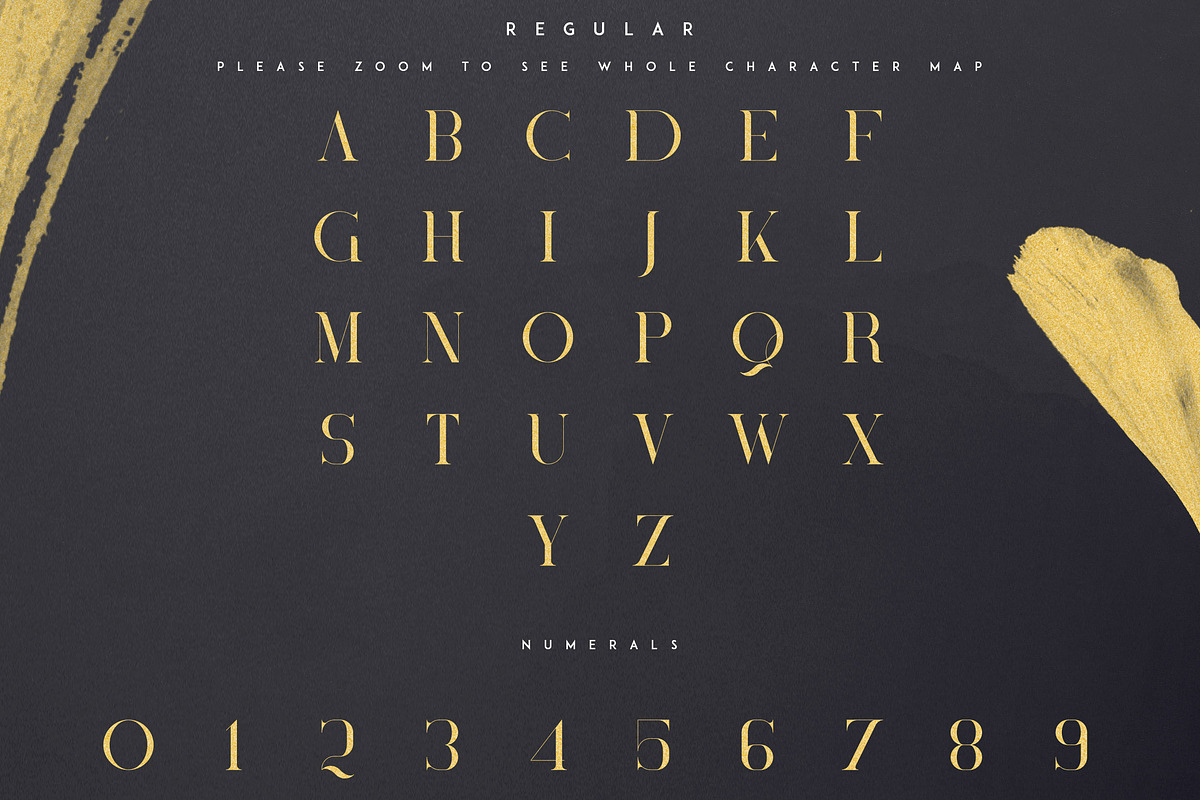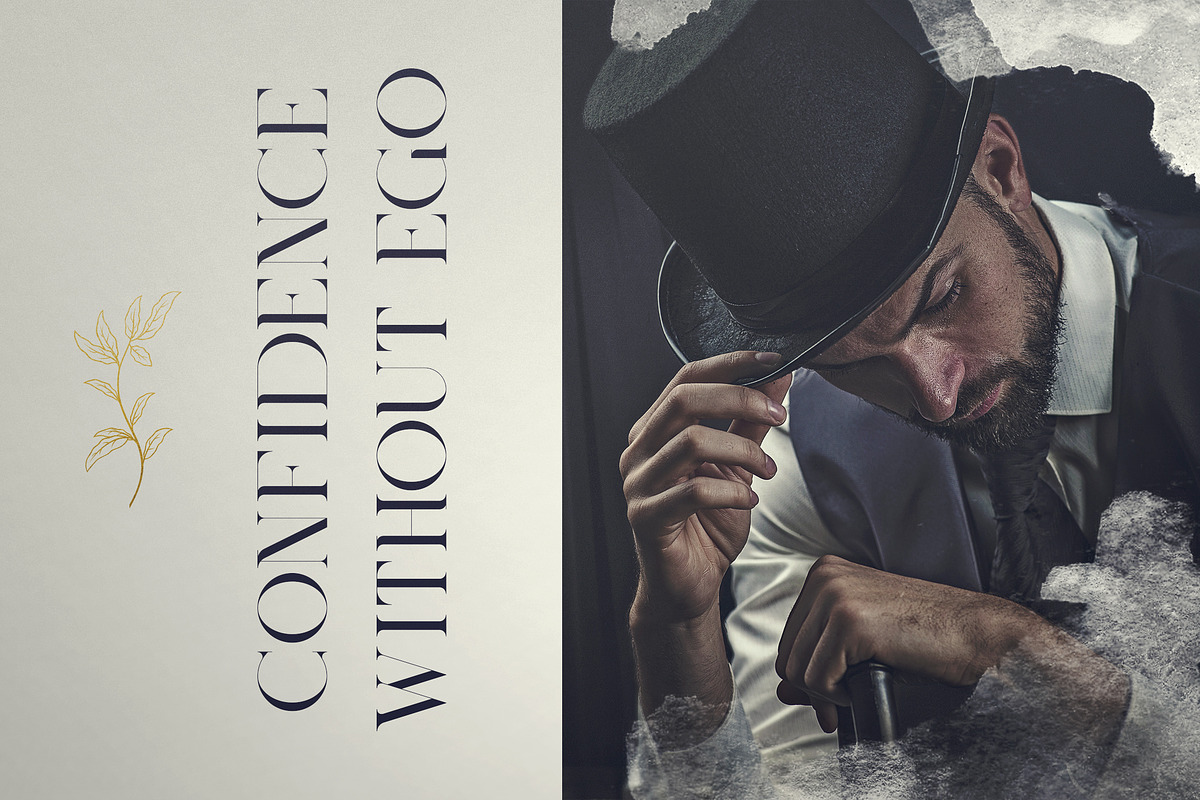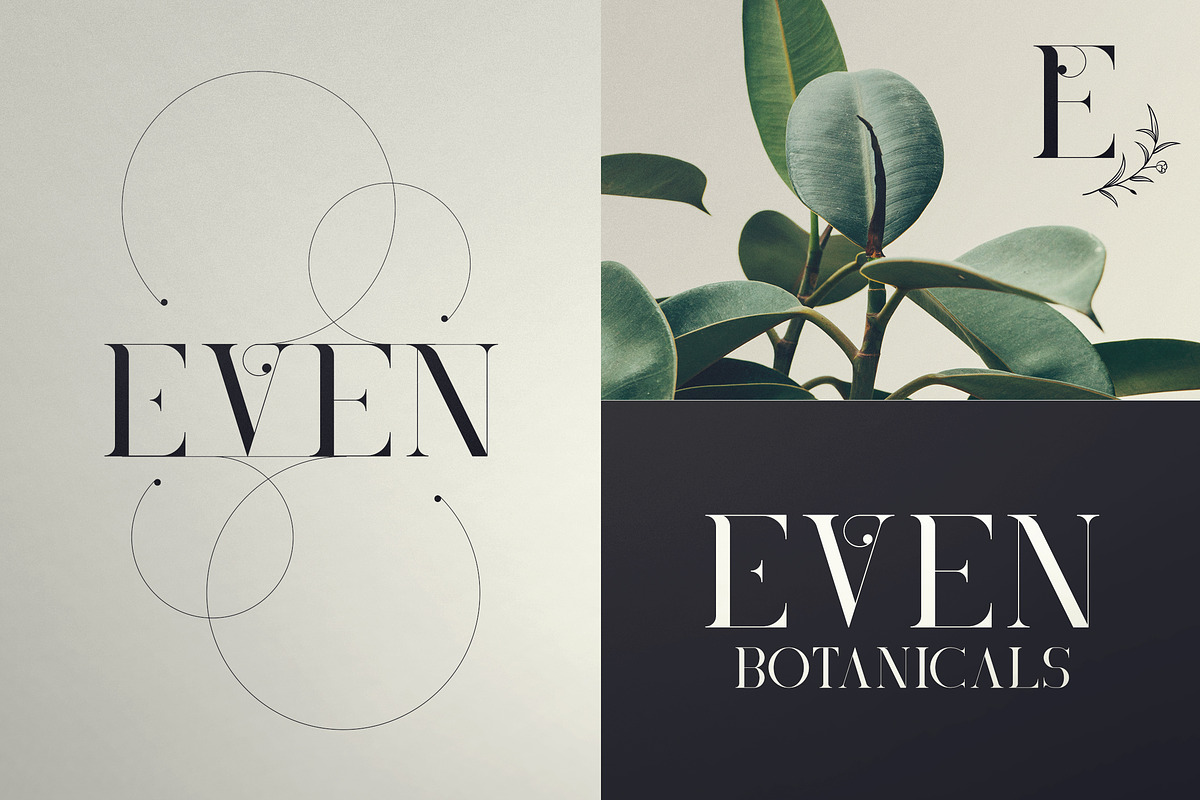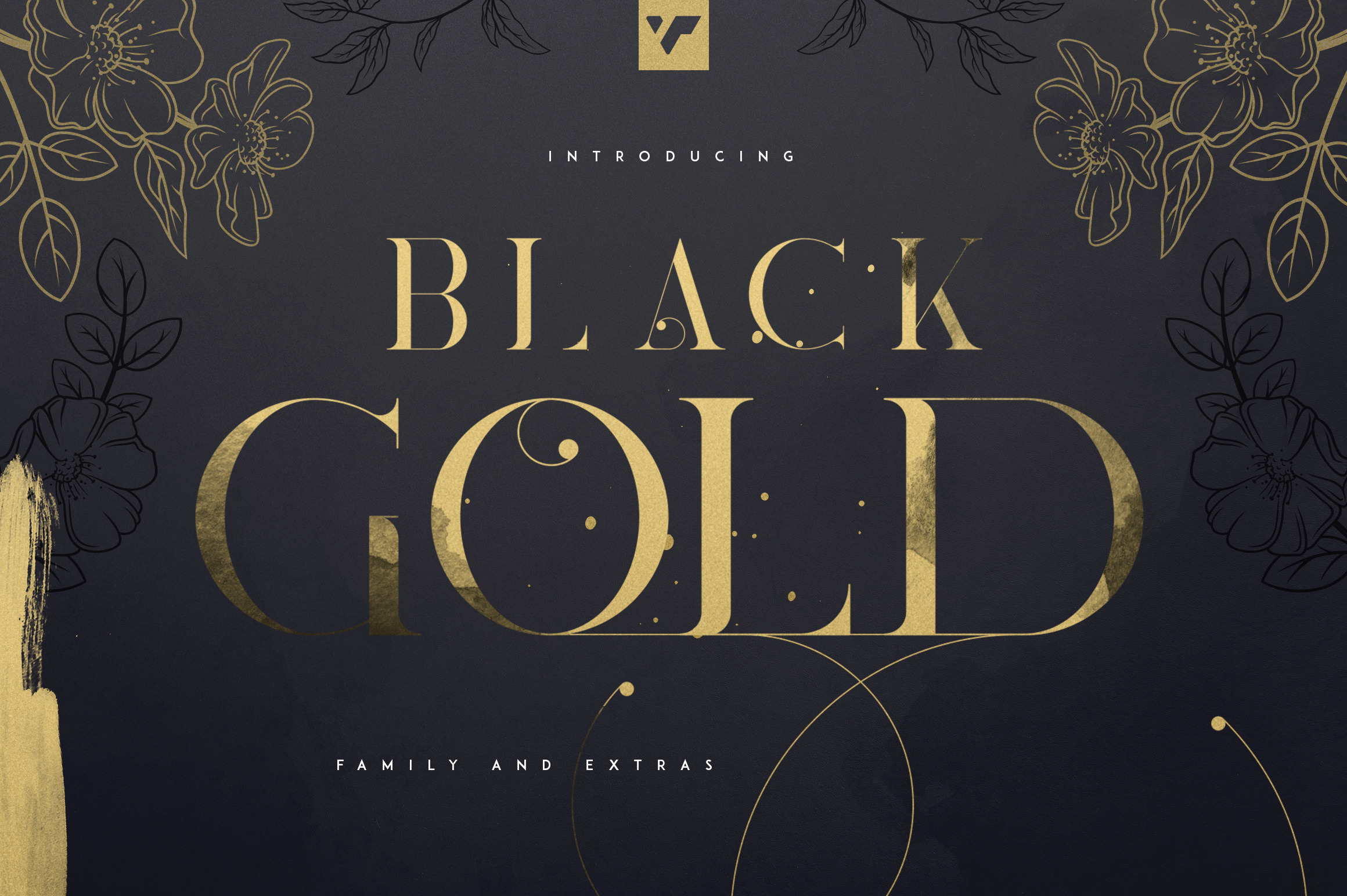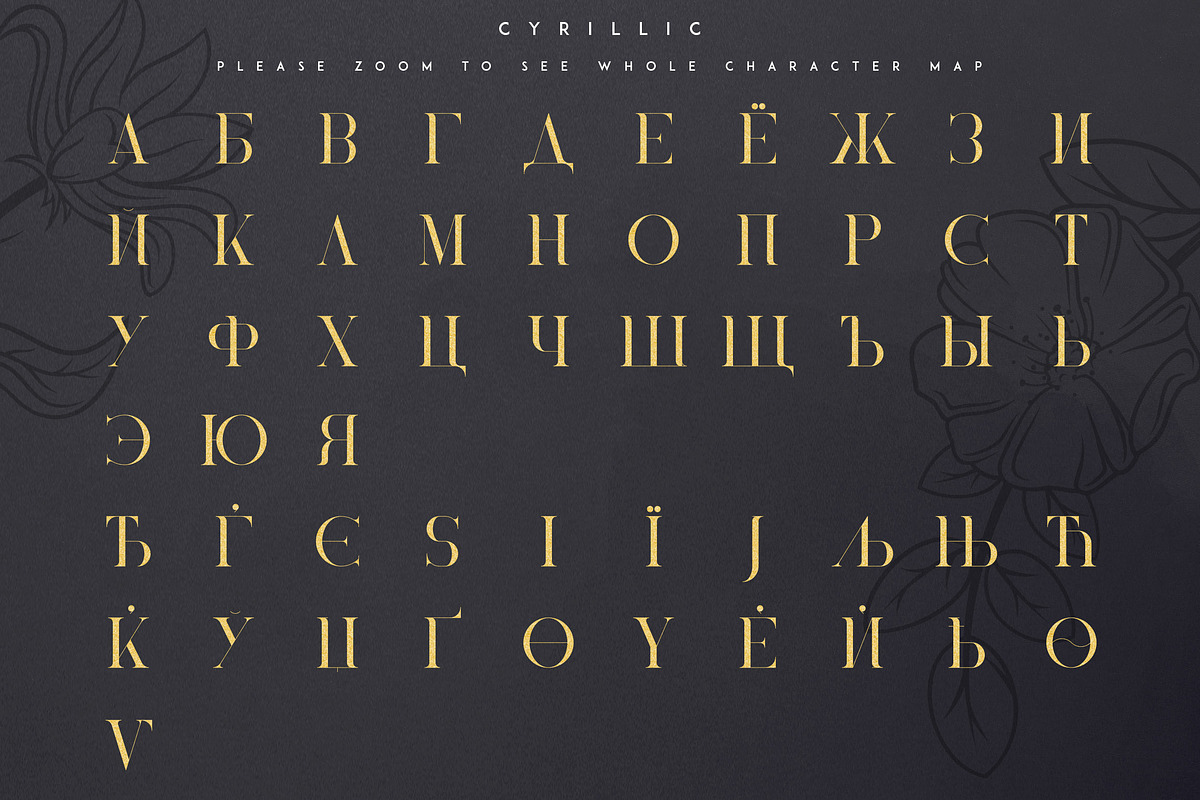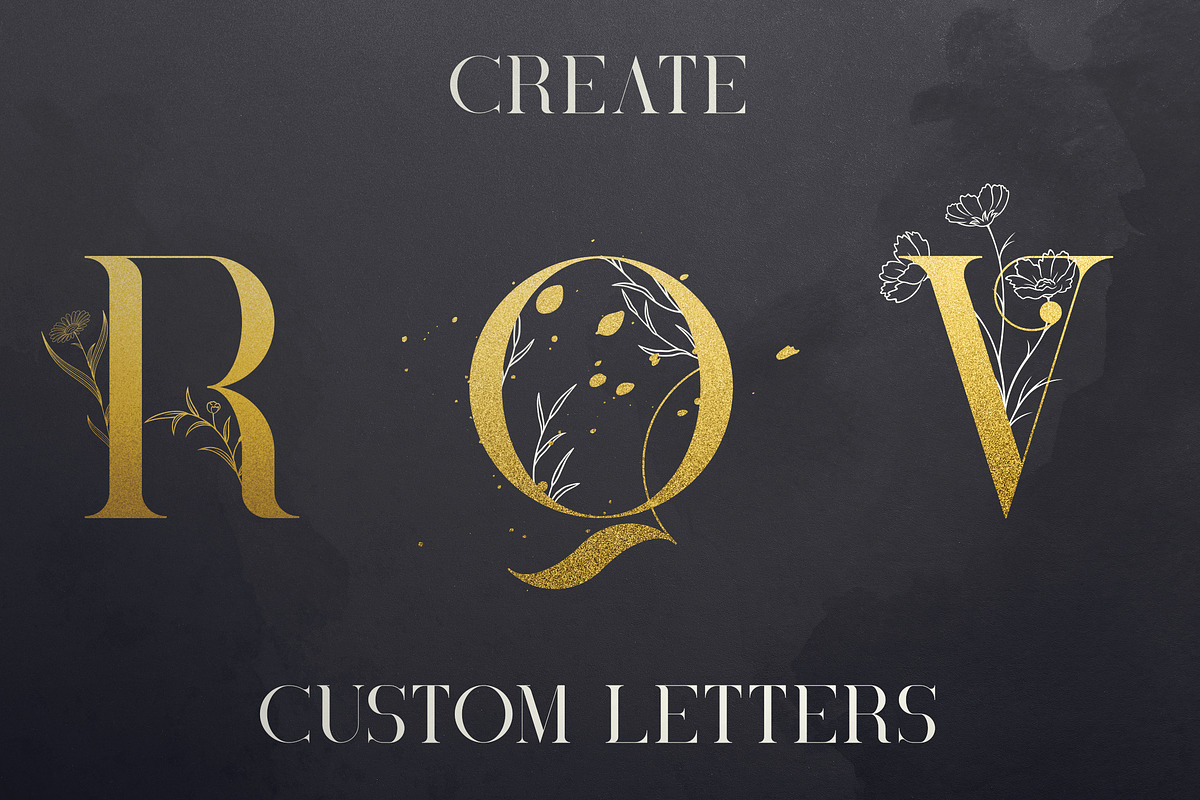
- Additional glyphs added
- Cyrillic support
- 12 additional elements
- Additional watercolor ornaments
- 5 new photoshop styles
- outline version
- rough version
- ornamented letters
- Black Gold Display - Serif and Cyrillic
- Black Gold Display Outline - Serif and Cyrillic
- Black Gold Display Rough - Serif and Cyrillic
Black Gold is sophisticated font with tons of alternative glyphs, ornaments, nature elements, photoshop styles, watercolours, ink marks and multilingual support. It's a very versatile font that works great in large and small sizes.
Black Gold is perfect for branding projects, home-ware designs, product packaging, magazine headers - or simply as a stylish text overlay to any background image.
Black Gold serif font with tons of alternative glyphs and multilingual support
26 Black Gold ornaments